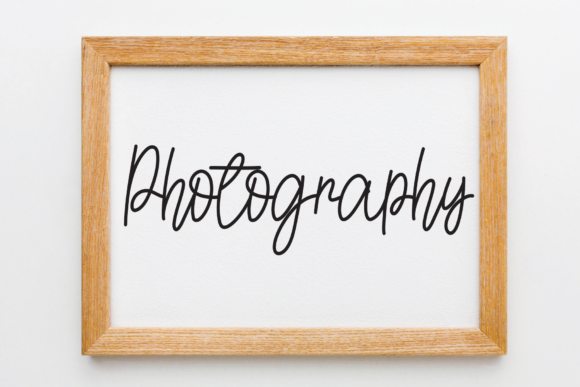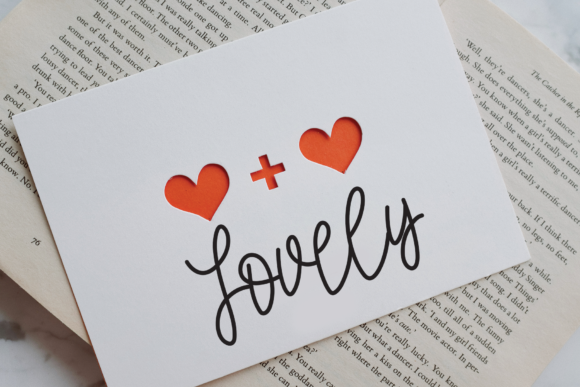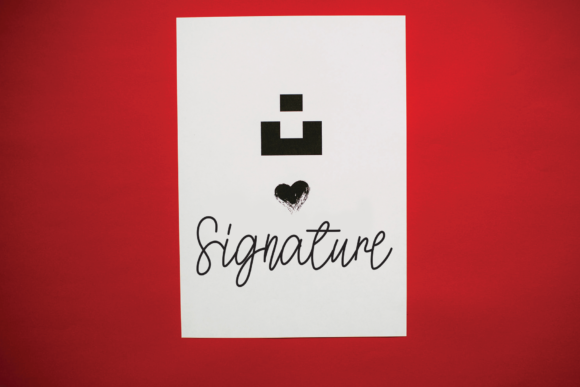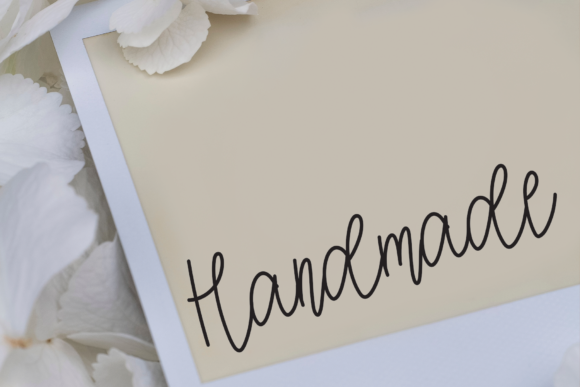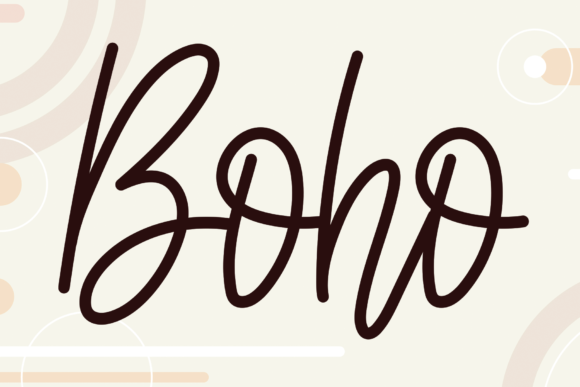
The Boho Font: A Charming and Elegant Addition to Your Design Arsenal
I’ll never forget the time I was working on a wedding invitation project, and my client asked for a font that was both elegant and playful. I scoured the internet, tried out dozens of fonts, but nothing seemed quite right. That was until I stumbled upon the Boho font. Its charming, handwritten aesthetic immediately caught my eye, and I knew I had found the perfect fit. In this article, I’ll share my experience with the Boho font, its features, and how to make the most of it in your designs.
An Honest Review of Boho Font
What I Love About Boho Font ✨
• ✅ Elegant and charming aesthetic, perfect for wedding invitations, thank you cards, and greeting cards
• ✅ Supports OpenType features, glyphs, and stylistic alternates, giving you plenty of creative freedom
• ✅ Versatile, suitable for logos, business cards, quotes, and more
• ⚠️ Some users may find the font a bit too ornate for very formal or traditional designs
• ⚠️ Limited availability of certain special characters, which may require workarounds
The Backstory of Boho Font
The Boho font was designed with the intention of capturing the essence of bohemian style – free-spirited, eclectic, and artistic. The designer aimed to create a font that would be both elegant and playful, suitable for a wide range of creative projects. The result is a beautiful, handwritten font that’s perfect for designers, crafters, and creative hobbyists.
What is the Boho font best suited for? The Boho font is perfect for wedding invitations, thank you cards, greeting cards, logos, business cards, quotes, and more.
Is the Boho font easy to read? Yes, the Boho font is highly legible, even at small font sizes.
Is the Boho font available in different languages? The Boho font may not support all languages, but it does include a range of special characters and glyphs.